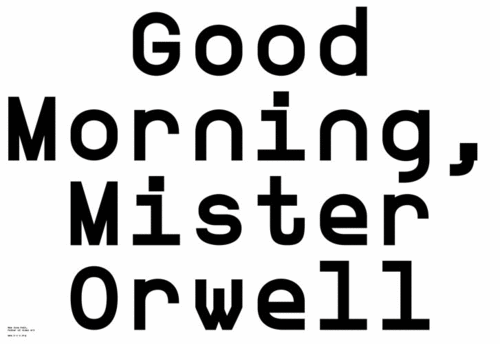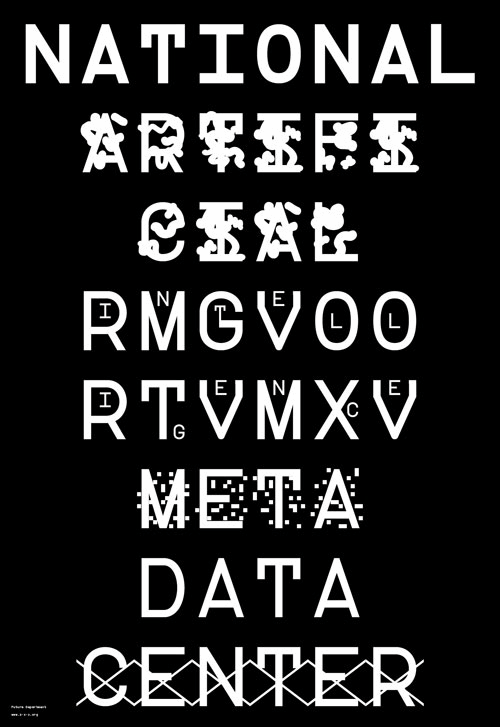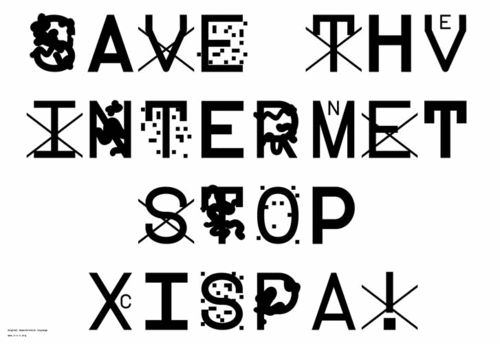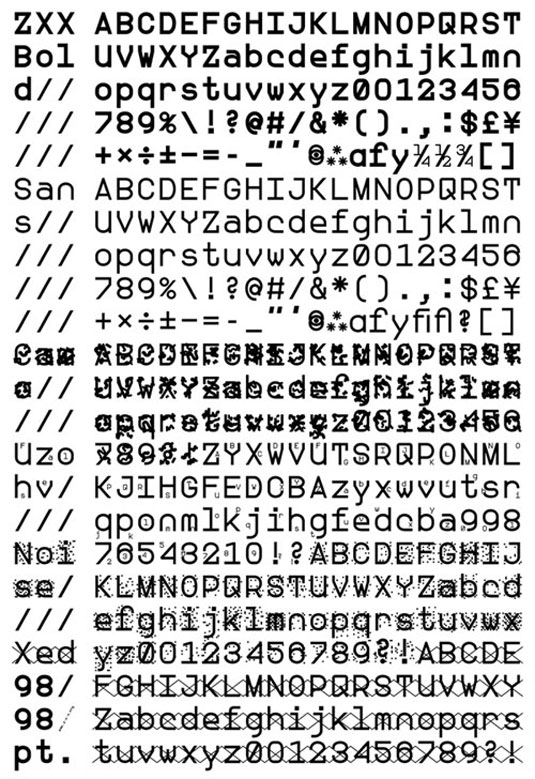
The anti-piracy font that computers can't read
Fed up with the NSA’s infringement of privacy, Sang Mun has created a font that computers are unable to read.
We all use the internet almost every day and share the likes of photos, new work and personal information. Taking matters of privacy into his own hands, an internet user by the name of Sang Mun has developed a font which cannot be read by computers.
Entitled 'ZXX' the font has been designed in such a way that computers with Optical Character Recognition (OCR) will not be able to recognise it. It comes in four different variations and whilst each remains readable to the human eye, computers will be unable to collate any information.
Mun has made the font free for all users on his website to encourage more action against infringement of privacy. It's a nice idea but does the font work well as a design? Will it actually 'trick' computers? Let us know in the comments box below!